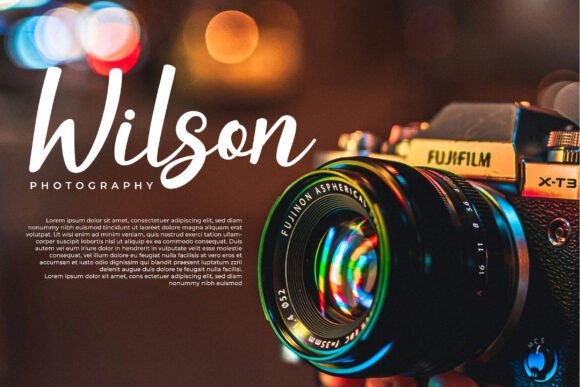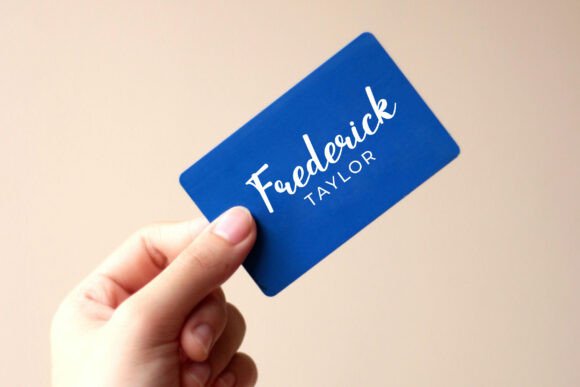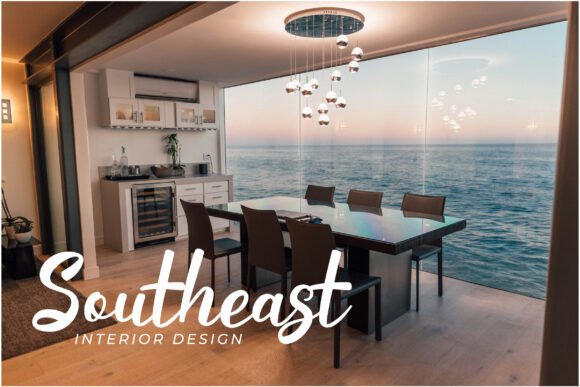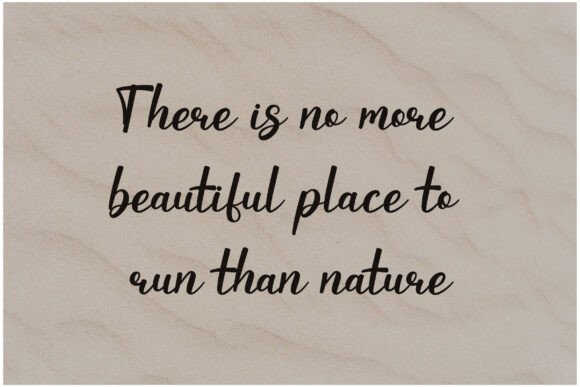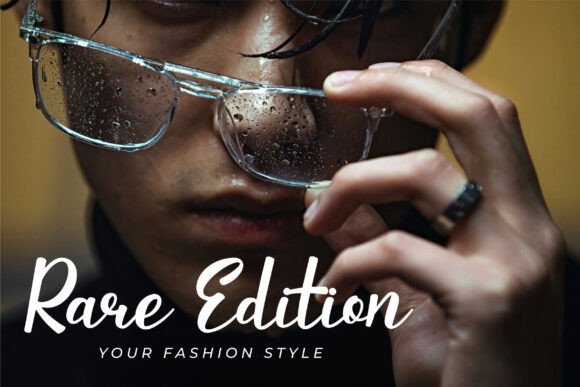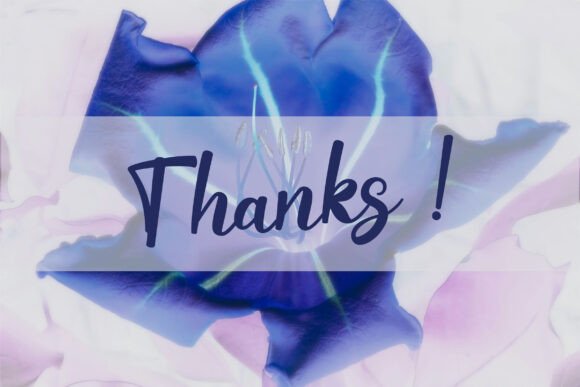
Introducing Diva Font: Elevate Your Designs with Idiosyncratic Elegance
Step into the world of idiosyncratic elegance with Diva, a genuine handwritten script font that is revolutionizing the way designers and crafters approach typography. With its unique blend of sophistication and charm, Diva is perfect for an array of uses, from wall displays and wedding invitations to social media post logos, advertisements, and product designs.
The Perfect Blend of Chic and Character
Diva’s distinctive charm lies in its ability to add a touch of bespoke chic to any design project. Its handwritten script style gives each piece a characteristically unique feel, making it perfect for designers and crafters looking to add a personal touch to their work. Whether you’re creating wedding invitations, wall displays, or social media graphics, Diva’s idiosyncratic elegance is sure to make your designs stand out.
Unleash Your Creativity with Diva
Diva’s versatility is one of its most valuable assets. This genuine handwritten script font can be used to transform a wide range of design projects, from logos and advertisements to product designs and stationery. With Diva, you can:
- Dress up your labels with a touch of elegance
- Add a personal touch to your photography with custom watermarks
- Elevate your stationery with bespoke typography
- Transform social media post logos and advertisements into art forms
Why Diva is a Game-Changer for Designers and Crafters
In a world where design trends are constantly evolving, Diva offers a refreshing alternative to traditional typography. Its unique style and versatility make it an invaluable asset for designers and crafters looking to stay ahead of the curve. With Diva, you can:
- Create standout designs that capture attention
- Add a personal touch to your work
- Elevate your brand with bespoke typography
- Save time with a font that’s easy to use and customize
Tips for Using Diva in Your Designs
To get the most out of Diva, here are a few tips to keep in mind:
- Use Diva in combination with other fonts to create a unique and eye-catching typography style
- Don’t be afraid to get creative and try out new and innovative design ideas
- Use Diva’s distinctive charm to add a personal touch to your designs and make them stand out
In conclusion, Diva font is a game-changer for designers and crafters looking to elevate their designs with idiosyncratic elegance. With its unique blend of sophistication and charm, Diva is perfect for a wide range of design projects, from wall displays and wedding invitations to social media post logos, advertisements, and product designs. Whether you’re looking to add a personal touch to your work or create standout designs that capture attention, Diva is the perfect choice.